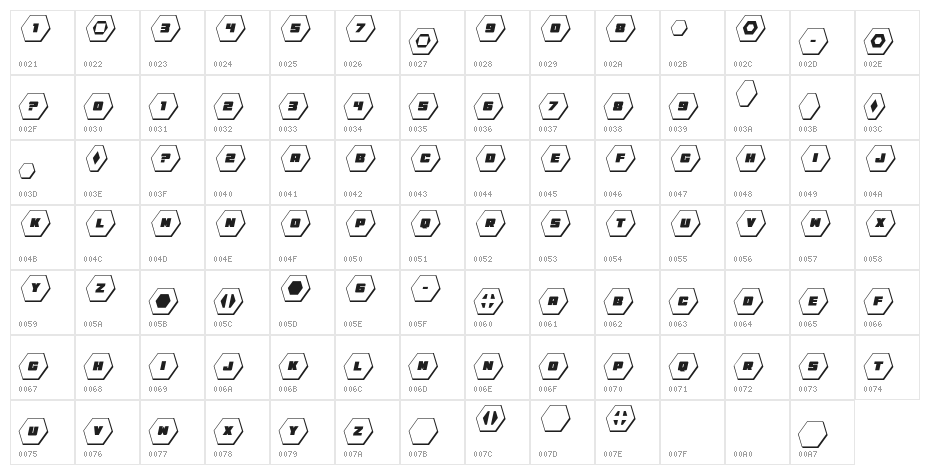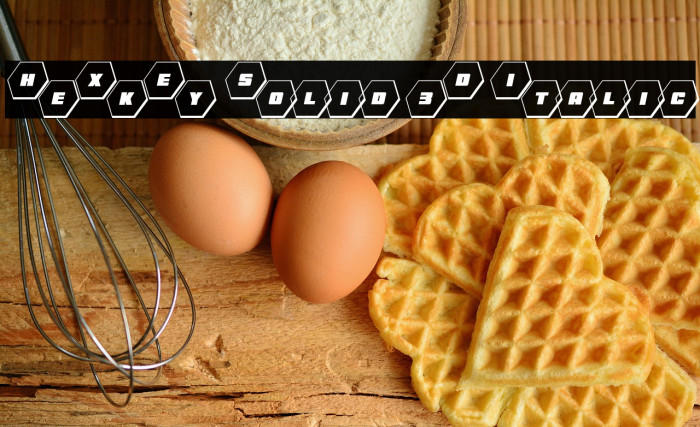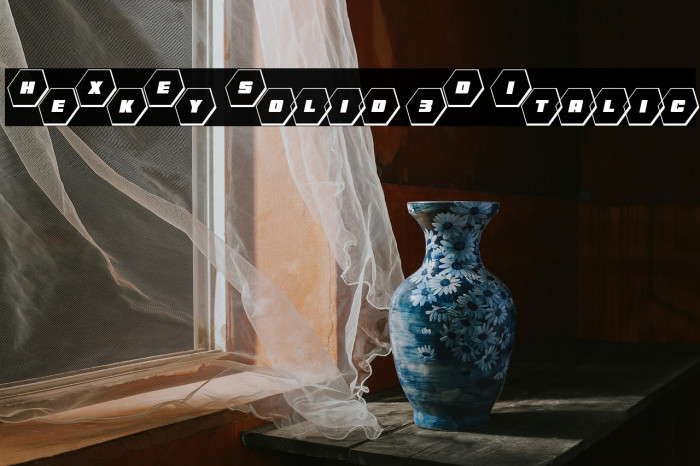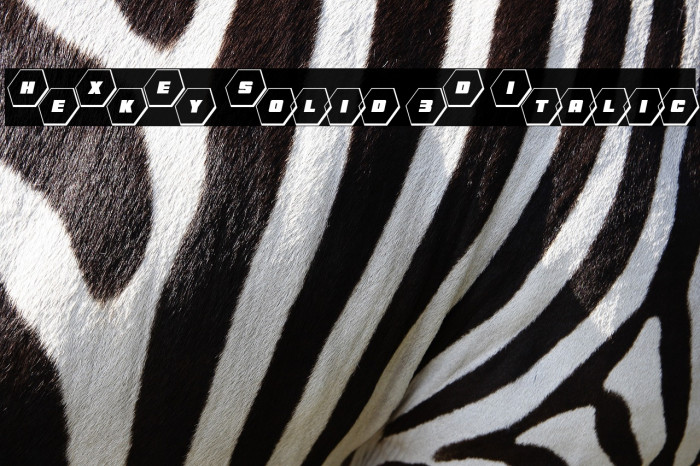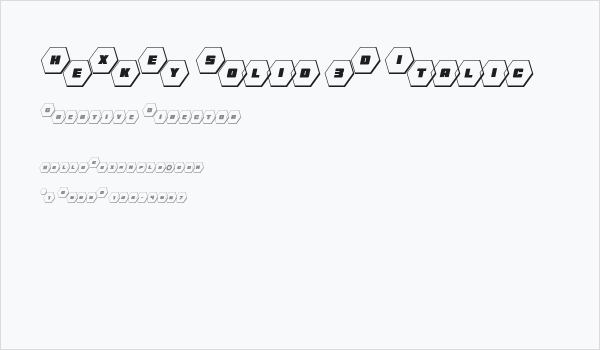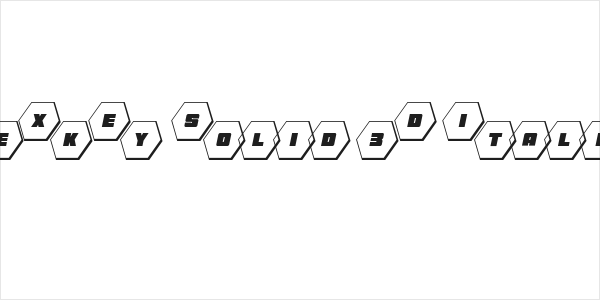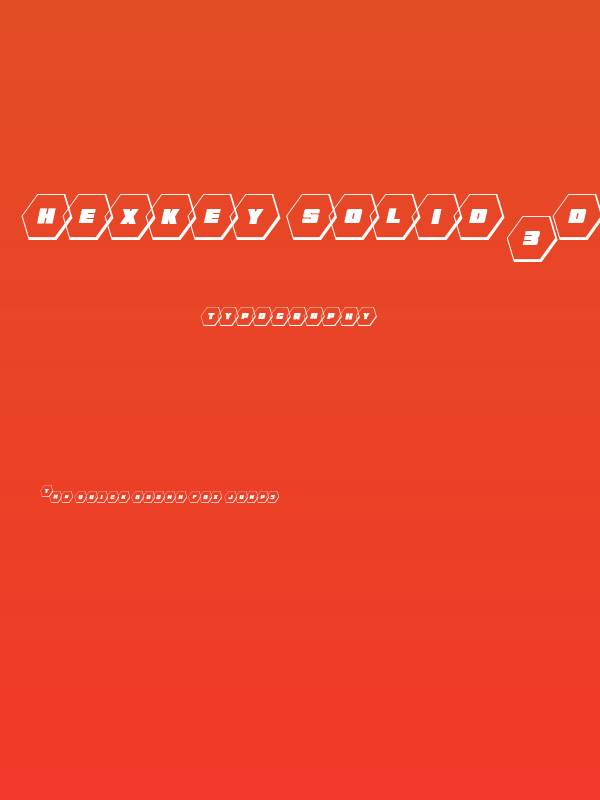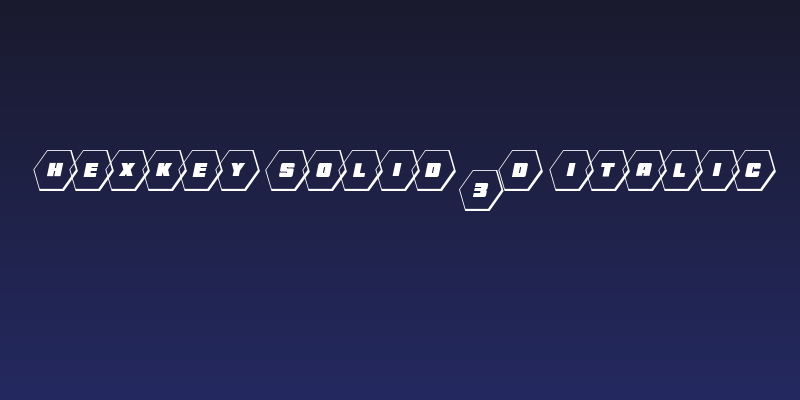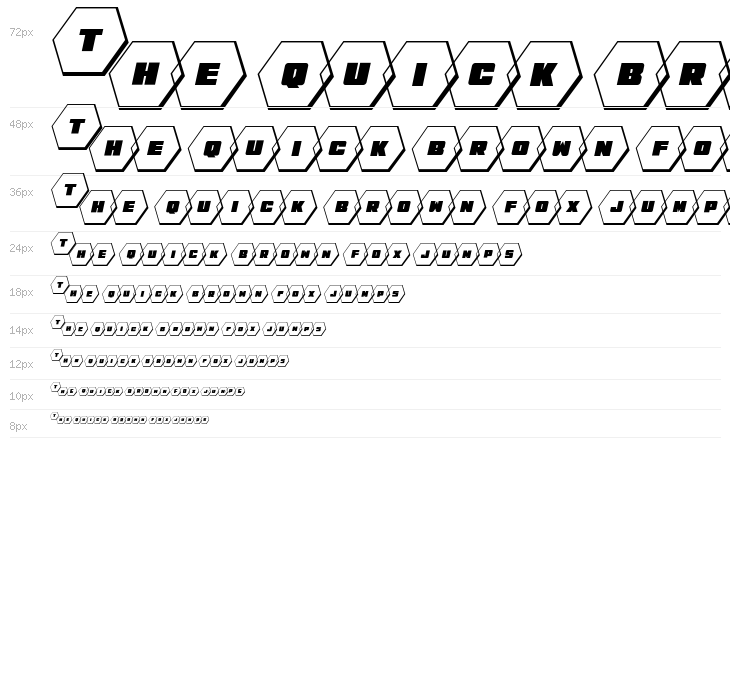
HeXkEy Solid 3D Italic Font
HeXkEy Solid 3D Italic Description
This font features a bold, three-dimensional design with each character enclosed in a hexagonal shape, creating a unique and eye-catching appearance. The letters and numbers are italicized, adding a sense of movement and dynamism. The geometric style is consistent across all characters, providing a cohesive look. The 3D effect is achieved through a shadow that gives depth, making the characters stand out. This font is ideal for projects that require a futuristic or tech-inspired aesthetic, as its distinctive style is both modern and playful.
| Proposed Projects | Ideal for tech-themed designs, video game graphics, futuristic branding, and sci-fi posters. |